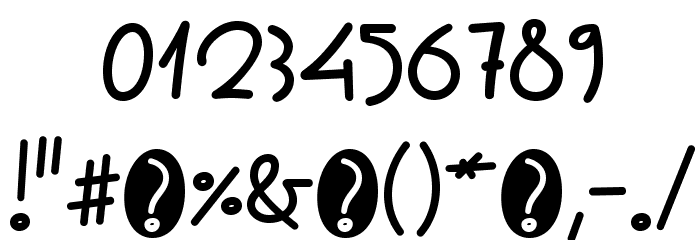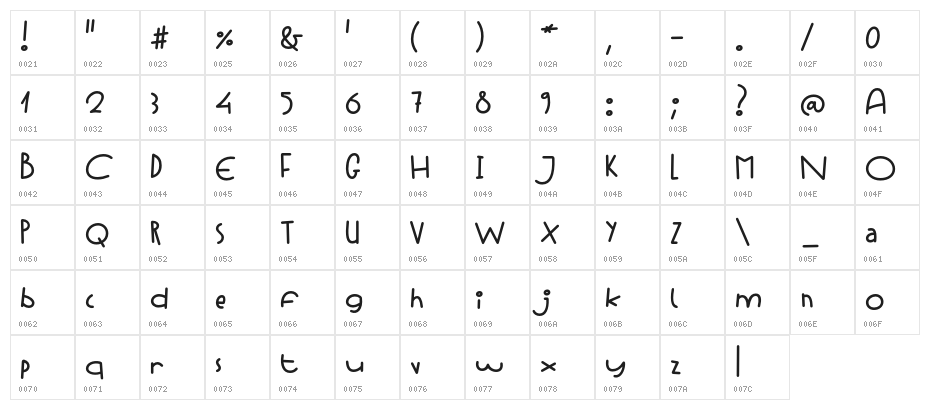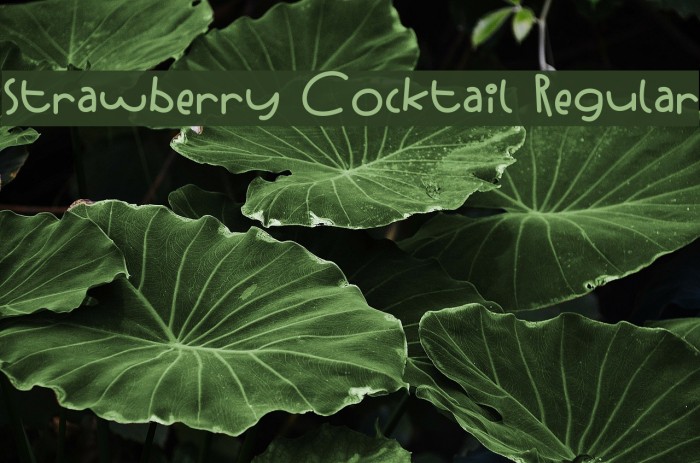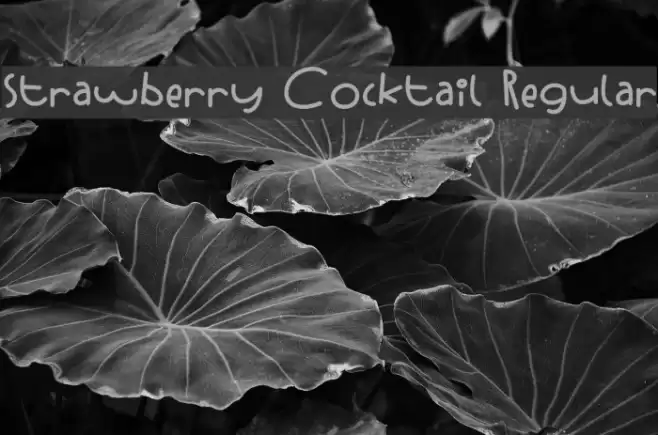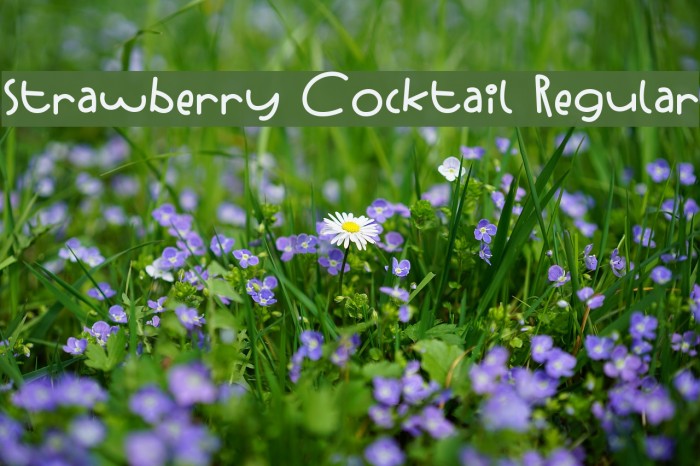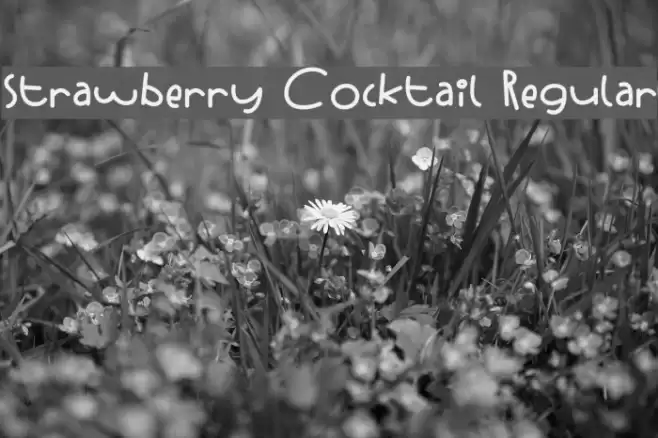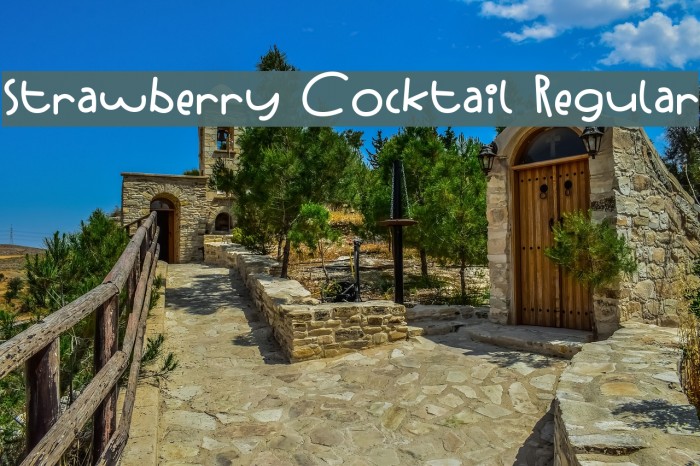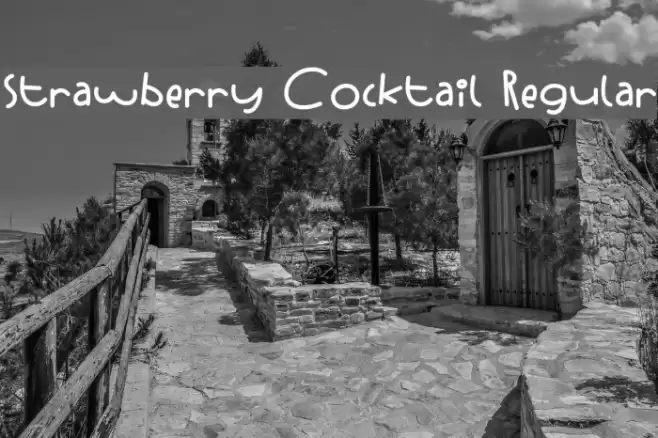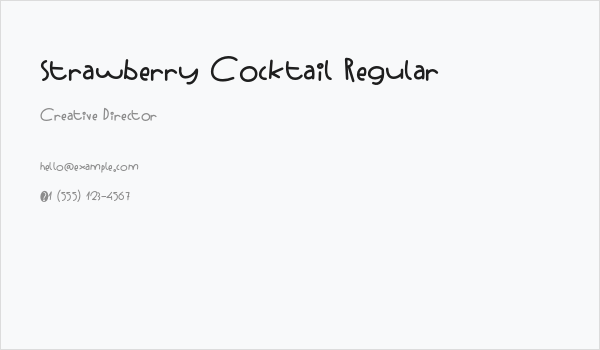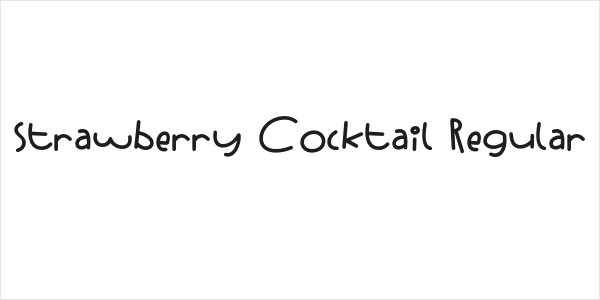
Strawberry Cocktail Regular Font
Strawberry Cocktail Regular Description
This playful and whimsical font features a handwritten style with a casual, friendly appearance. The characters are rounded and slightly irregular, giving it a lively and informal feel. The uppercase letters are bold and prominent, while the lowercase letters maintain a consistent flow with a touch of quirkiness. The numerals are clear and easy to read, matching the overall playful aesthetic. Special characters are creatively designed, adding to the font's charm. This font is perfect for projects that require a fun and approachable look.
| Proposed Projects | Ideal for children's books, greeting cards, playful branding, and casual invitations. |